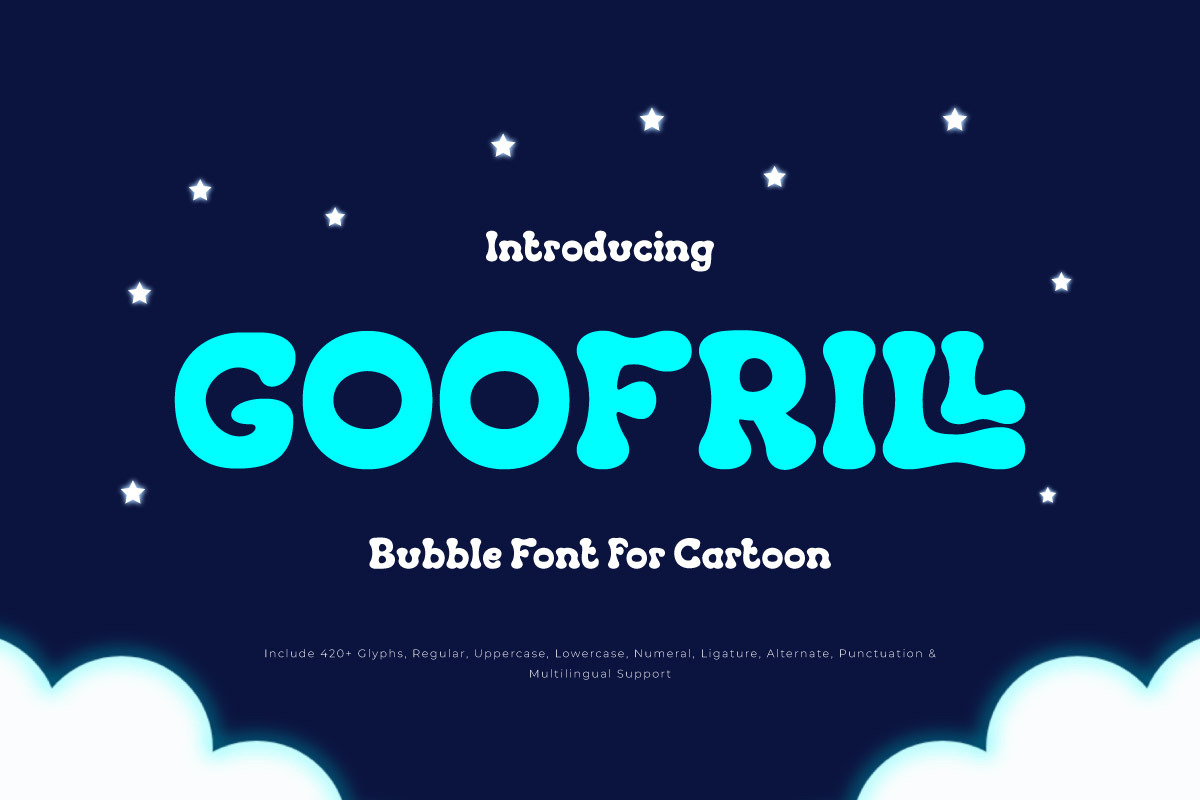
Goofrill - Cartoon Display Font
Bring out the fun and energy in your designs with Goofrill, a playful cartoon display font that radiates charm and silliness! Designed with bold curves, bouncy letterforms, and a cheerful personality, Goofrill is perfect for children's books, animated titles, toy packaging, birthday invitations, and all kinds of whimsical creative projects.
Whether you're crafting a colorful comic, launching a kids' app, or branding a fun snack product, Goofrill adds a delightful and joyful touch. Its quirky style captures the imagination and keeps the tone light-hearted and approachable. This font is easy to read yet full of unique character—just what you need to make your design stand out in the cartoon universe.